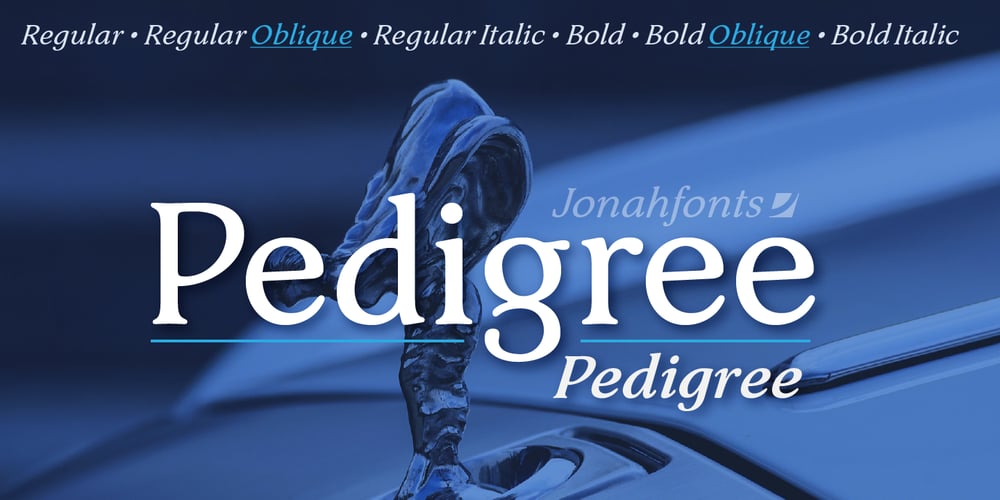
Pedigree Font Family was designed by John Nahmias and published by Jonahfonts. Pedigree contains 6 styles and family package options. Designed in six styles from Regular to Bold including Italics and Obliques, Pedigree covers a large range of editorial and advertising applications. Suggesting it’s usage is really up to the designers’ expertise whether it be used for web or print media.Try using the MyFonts “Preview Pedigree as a webfont”.